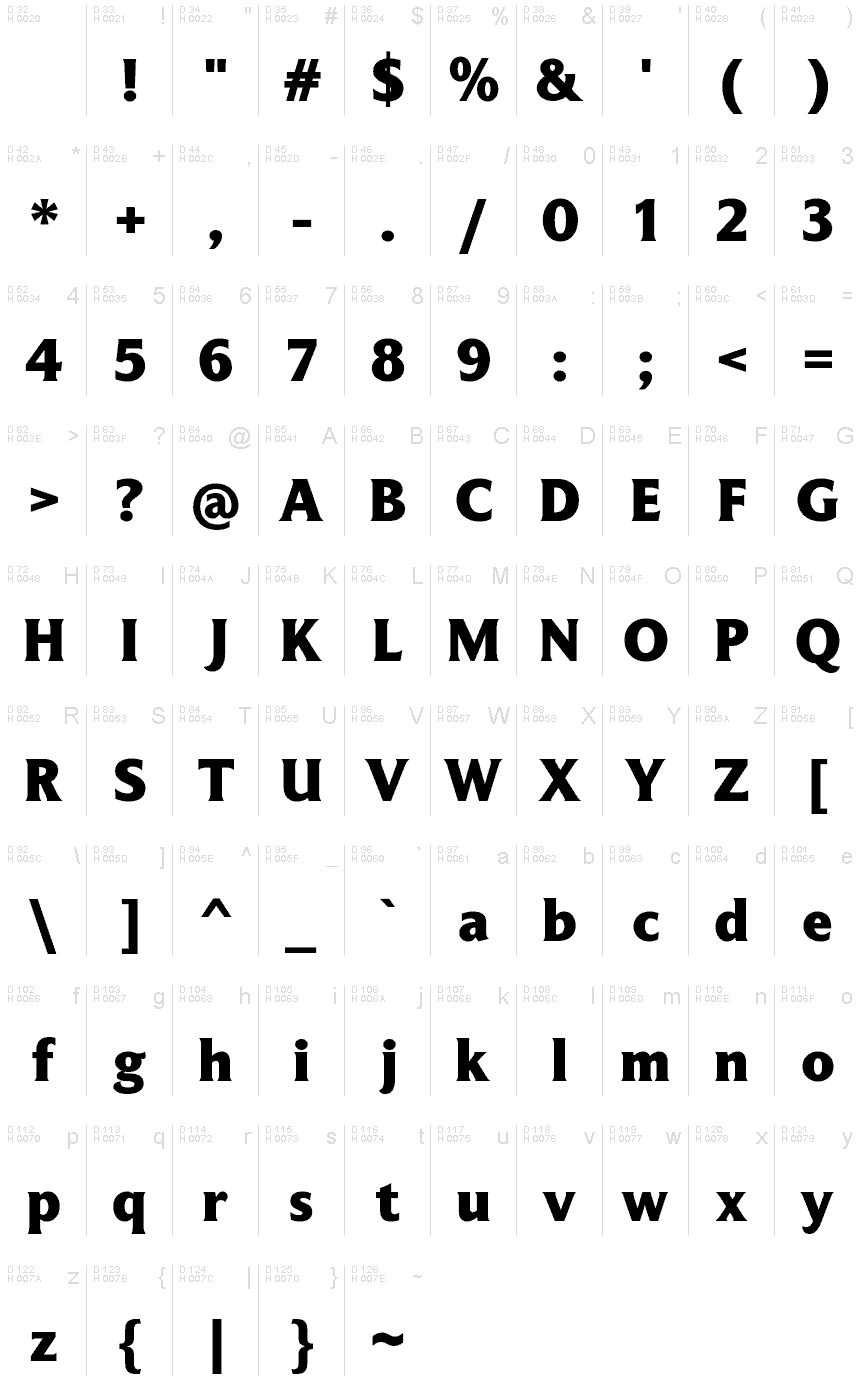
LT Museum is a nostalgic flare serif typeface that reflects on the spirit of museums. Not only is it based upon the classic AIB typeface, but it's also slightly refined to make it look a bit less of a derivative to said typeface, and it also has extended Latin coverage.
This typeface exudes a sense of elegance and sophistication, reminiscent of the timeless artifacts and treasures that museums house within their walls. Its intricate details and carefully crafted design evoke a sense of reverence for the past, while also celebrating the beauty of art and heritage.
With its graceful curves and classic serif style, LT Museum captures the attention of viewers and transports them to a world where history comes alive through typography. The intricate details of this typeface are reminiscent of the intricate craftsmanship found in the exhibits of a museum, inviting the audience to explore and discover the stories hidden within each letter.
In a world where digital fonts dominate the landscape, LT Museum stands out as a tribute to the enduring legacy of museums as gateways to the past. Its timeless appeal and nostalgic charm make it a perfect choice for projects that seek to evoke a sense of history, culture, and sophistication. Whether used in branding, editorial design, or any other creative endeavor, LT Museum adds a touch of class and heritage that is sure to leave a lasting impression on any audience.
LT Museum Black